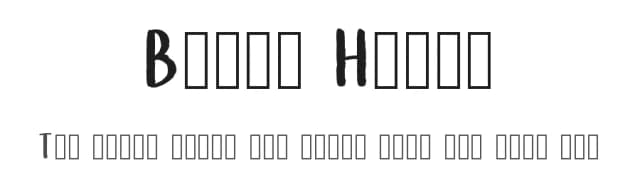
Tupelo Honey by One Twenty Studio is a hand-drawn slab serif that trades polish for personality. The typeface embraces imperfection as a feature, with wobbly strokes and subtly irregular letterforms that feel handcrafted rather than digitally precise. This authentic quality makes it ideal for designers seeking warmth over formality. You'll find it shines on rustic farmhouse packaging for artisan soaps and candles, handmade wedding invitation suites, DIY nursery wall signs, and Etsy product labels that signal genuine human effort rather than mass production.
The thin, airy weight keeps it readable even at display sizes, and the quirky character works equally well as a headline or accent font. Pair it with serif and sans-serif combinations to add visual interest without overwhelming layouts. The hand-lettered details give each word a sense of movement and life, which is why it connects so strongly with greeting card designs, children's book illustrations, and craft-fair booth signage. Brands love it because the typeface communicates not just information but personality.
What makes Tupelo Honey work is its honesty. The imperfect edges and wobbly curves don't feel sloppy, they feel intentional, like a friend wrote something by hand just for you. It's become a favorite for indie creators and small business owners who want their work to stand apart from cookie-cutter designs. Download Tupelo Honey from Creative Fabrica and bring that handmade warmth to your next project.
Tupelo Honey Font is a slab serif font that shines as a display or heading face. Pair it with a clean sans-serif or serif font for body text β the contrast creates a clear hierarchy while the two styles stay balanced and easy to read.